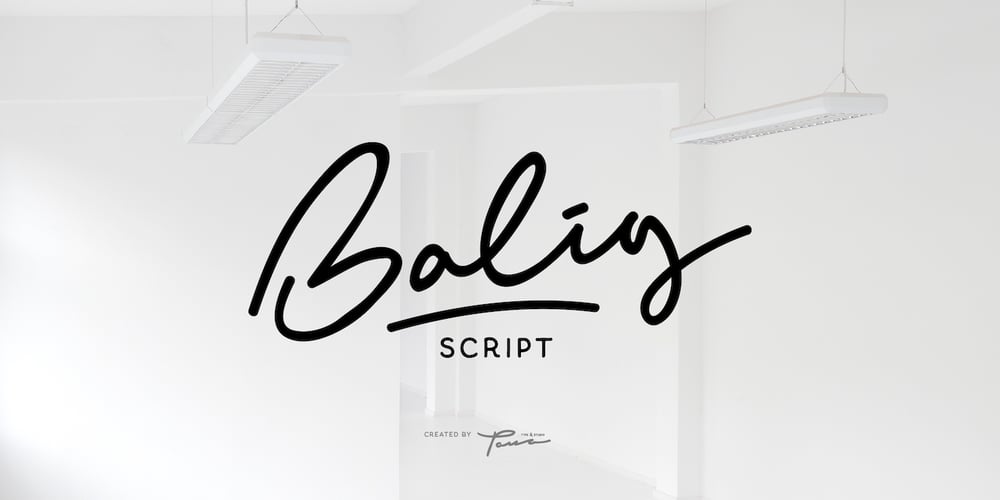
Balig Script Font Family was designed by Ajusia and published by Panatype Studio. Balig Script contains 5 styles and family package options. Balig Script is signature pen script, available in 2 fonts with 2 styles ( Normal & Bold ), and includes Swashes. It’s perfect for signatures, logo type, weddings, posters, brochure or any display use. Balig Script comes with more OpenType features like Stylistic Alternates, Initial Forms, Terminal Forms, and also Standard Ligatures make this font more natural and letter nicely.